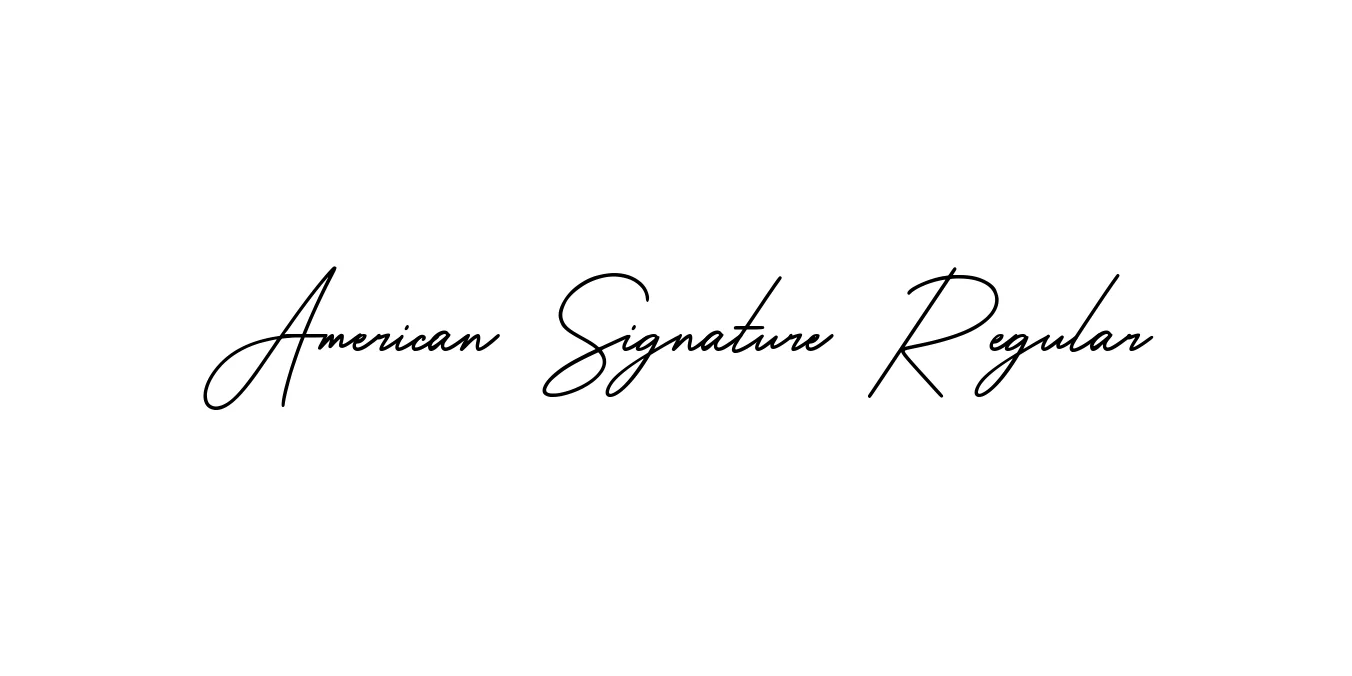
American Signature Regular
Designed by Creatype Studio
American Signature Regular is a contemporary script typeface meticulously crafted to replicate the natural flow and elegance of authentic penmanship. Developed by the renowned Creatype Studio, this font features fluid, expressive strokes and a sophisticated aesthetic that bridges the gap between casual handwriting and professional calligraphy. Its design focuses on high legibility while maintaining a personal flair, making it an essential tool for designers who want to inject a human touch into their digital compositions.
The font is celebrated for its versatility, offering a wide array of ligatures and stylistic alternates that ensure words connect seamlessly, mimicking a real signature. Since its release, American Signature has become a staple in the creative industry for high-end projects. Whether it is being used for luxury fashion branding or intimate wedding stationery, the font delivers a sense of exclusivity and timeless grace that elevates any visual narrative.
American Signature Regular Best Uses
Creating sophisticated logos and brand identities for luxury products and boutiques.
Designing romantic invitations, place cards, and personalized thank-you notes.
Applying as a professional watermark or signature on high-quality digital imagery.
Crafting engaging quotes, story highlights, and stylish headers for Instagram and Pinterest.